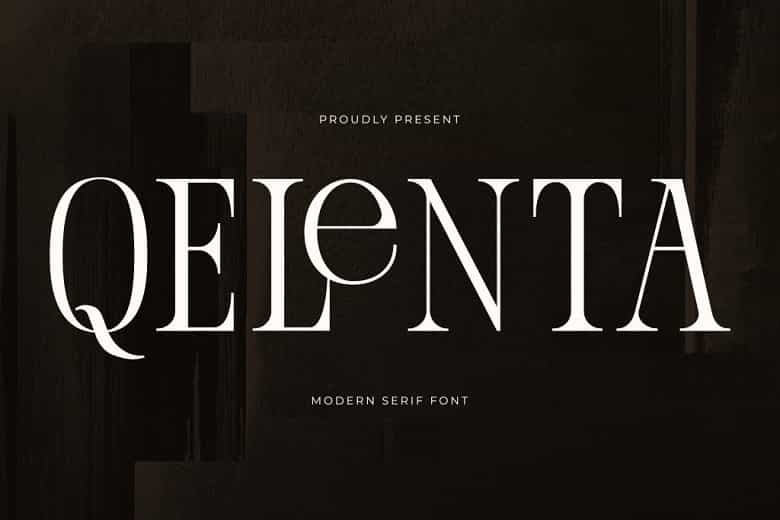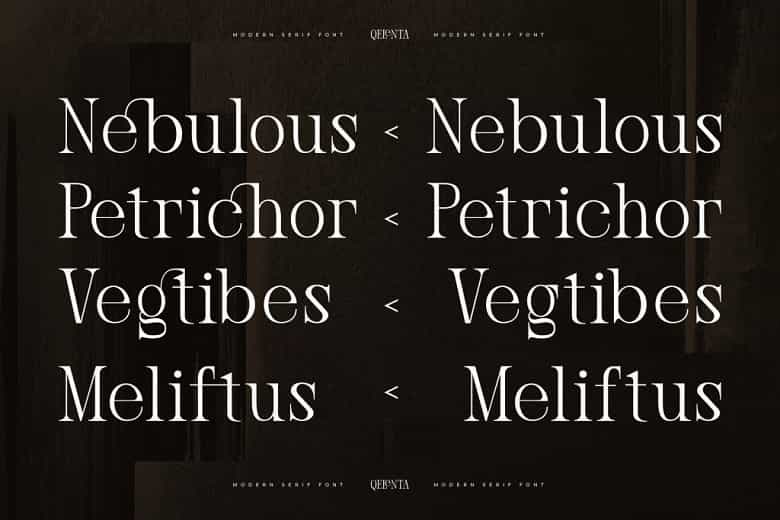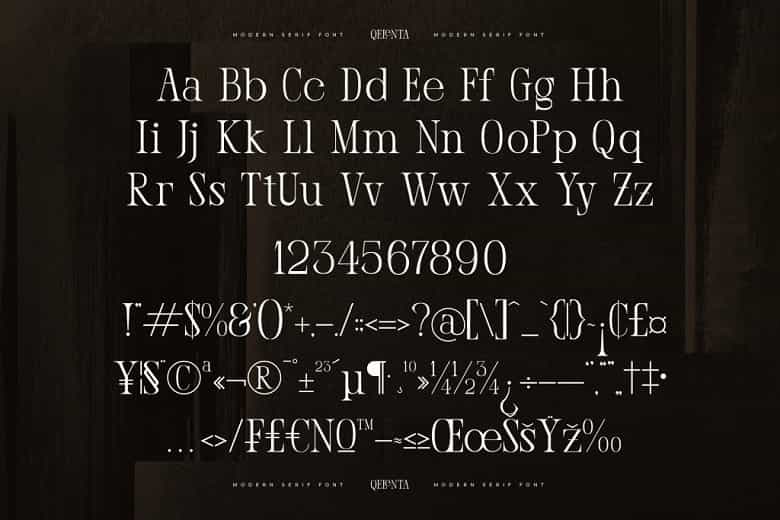
Qelenta looks and feels very up to date and quite chic. This modern serif font is designed to the detail, it presents that optimal blend between the sharp edges and the round shapes. Every character is crafted in a way that captures both the traditional and the contemporary styles, thus suitable for premium brands and publications.